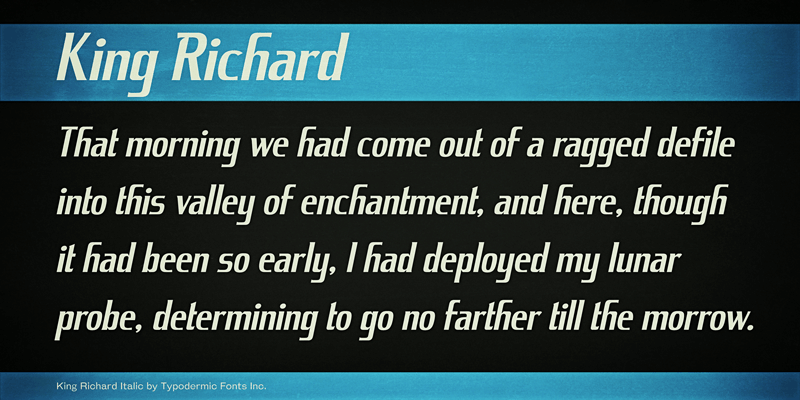
King Richard is a 1960’s era American automotive display font with flare serifs. These fonts include a license that allows free commercial use: sometimes referred to as a desktop license. This allows you to install the fonts on a computer and use them to create posters, web graphics, game graphics, t-shirts, videos, signs, logos and more. Read the license agreement for details. If you'd like to embed these fonts in an app, ebook, on the web or anything that's not covered by the desktop license agreement, visit the link below. You'll find distributors who offer different types of licenses or you can contact me for help. http://typodermicfonts.com/king-richard/ |